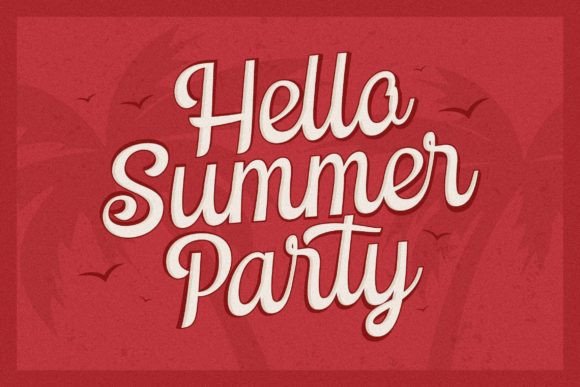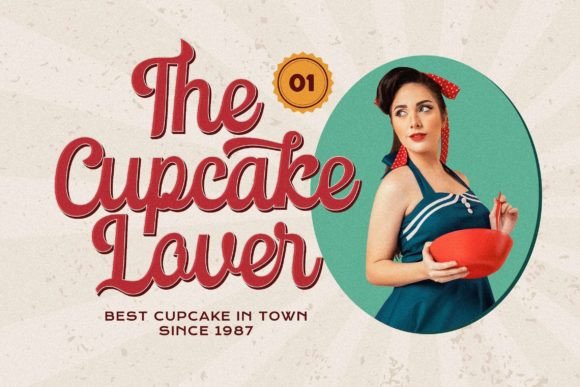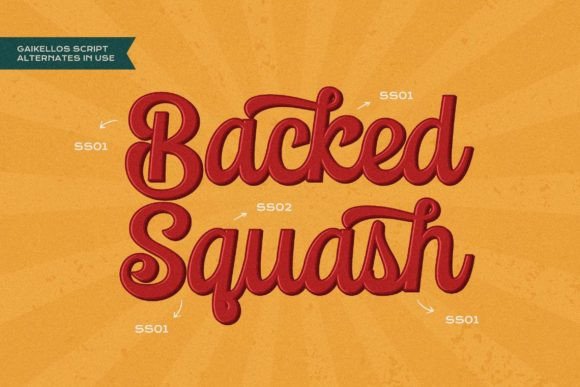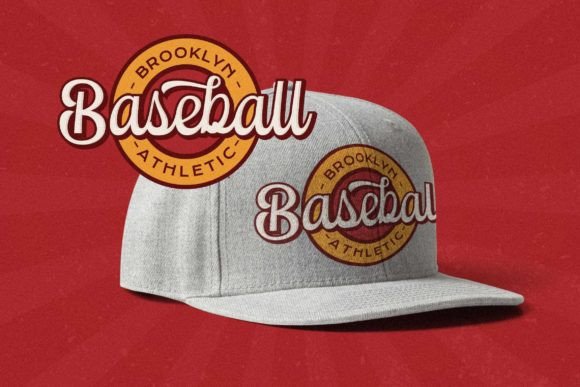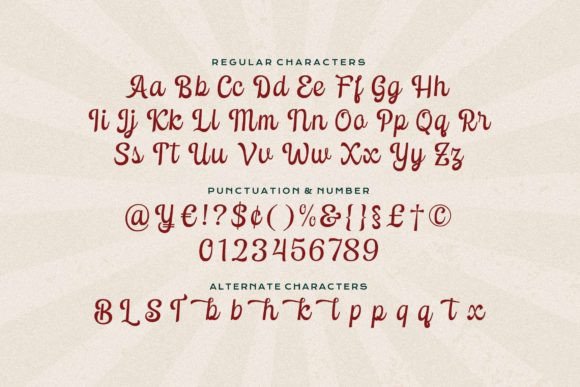
The Designer’s Delight: Gaikellos Script Font
I’ll never forget the time I was working on a vintage-inspired branding project for a client, and I just couldn’t seem to find the perfect font. The client wanted something that exuded charm, character, and a hint of nostalgia. I scoured the internet, tried out countless fonts, but nothing seemed quite right. That was until I stumbled upon Gaikellos Script Font. ✨
This beautiful script display font has a retro style that’s sure to transport your designs back in time. Its unique vibe makes it incredibly versatile, and I’m excited to share with you just how amazing it is.
- ✅ The charming, vintage aesthetic that’s perfect for a wide range of designs
- ✨ The unique ligatures and glyphs that add an extra layer of personality to your work
- 💡 The PUA encoding, which makes it easy to access all the amazing features
- 🎨 The flexibility to use it in various design projects, from branding to invitations and more
While Gaikellos Script Font is an amazing addition to any design project, there are a few things to keep in mind: ⚠️
- 🤔 Some of the more intricate ligatures and glyphs might not display properly on all devices or platforms
- ⚠️ It may not be the best choice for body text or reading-heavy content, as it’s a display font meant to make a statement
A Brief Backstory: The Inspiration Behind Gaikellos Script Font
Gaikellos Script Font was created with the intention of capturing the essence of vintage design. The designer drew inspiration from classic typography, infusing it with a modern twist to create a truly unique font. The result is a beautiful, charming script font that’s perfect for adding a touch of nostalgia to your designs.
A: PUA (Private Use Area) encoding allows you to access a wide range of glyphs and ligatures, making it easy to add unique personality to your designs.
Q: Is Gaikellos Script Font suitable for body text?
A: While Gaikellos Script Font is a beautiful font, it’s a display font meant to make a statement. It’s not ideal for body text or reading-heavy content.